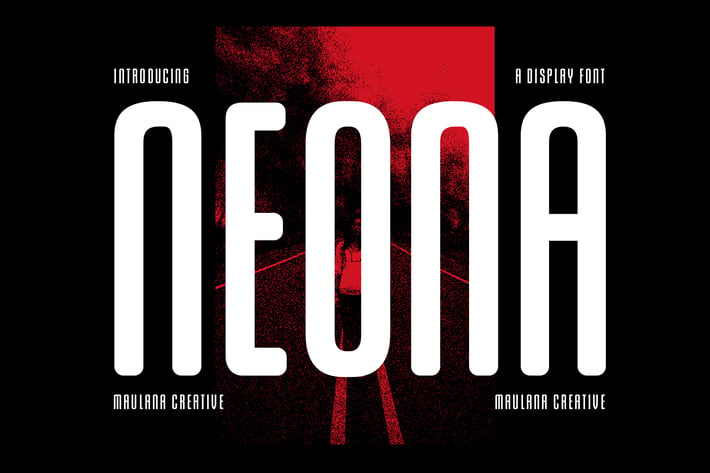
Neona Sans Serif Display Font
Neona is an all caps Condensed display sans font. With bold Round stroke, fun character with a bit of ligatures. To give you an extra creative work. Neona font support multilingual more than 100+ language. This font is good for logo design, Social media, Movie Titles, Books Titles, a short text even a long text letter and good for your secondary text font with sans or serif. Make a stunning work with Neona font.